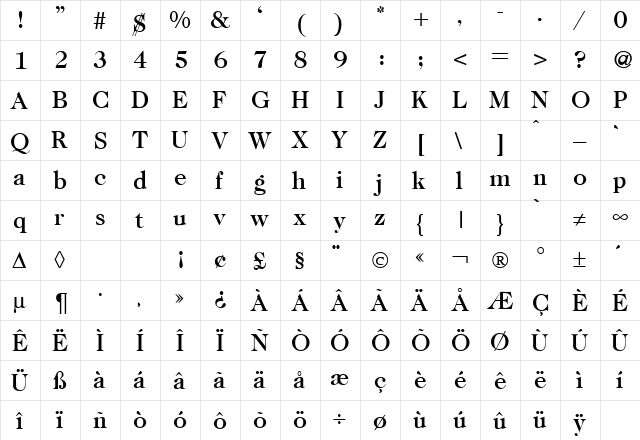
Caslon335Medium Regular
Design Context for Caslon335Medium Typeface
Caslon335Medium is a composed and adaptable typeface that performs quietly and consistently across a wide range of design contexts.